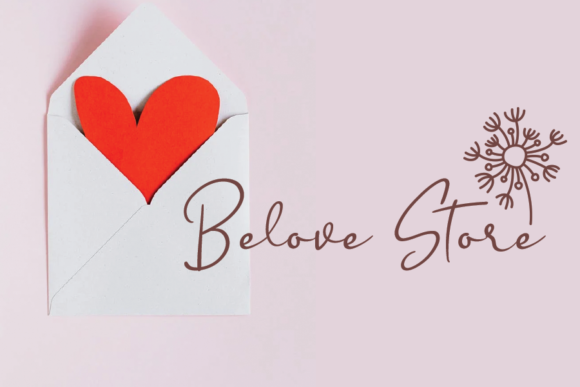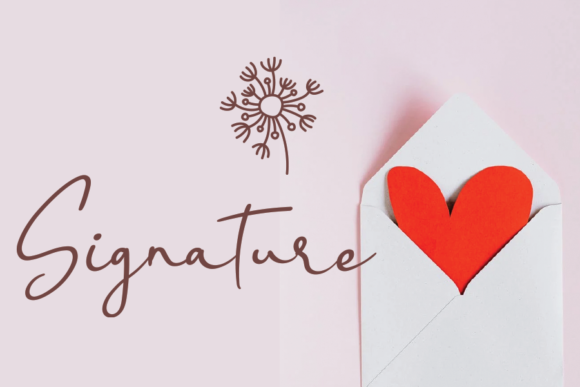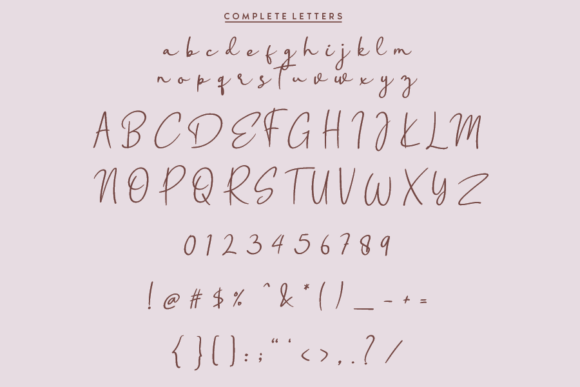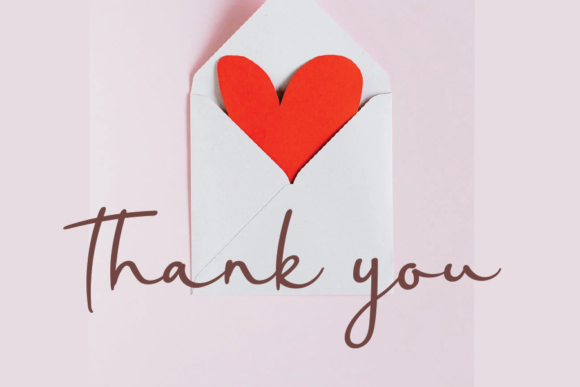
Dollattodu Font
About Dollattodu Font
Dollattodu results out of a stunning pairing of a brush pen and pencil that makes it look incredibly endearing and authentic. Use this gorgeous and unique handwritten font to bring any DIY project to life!